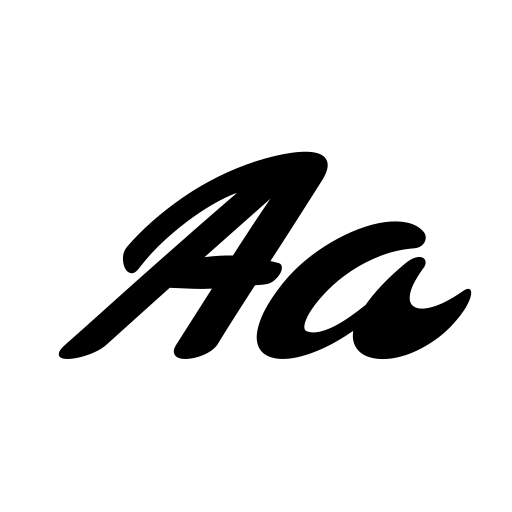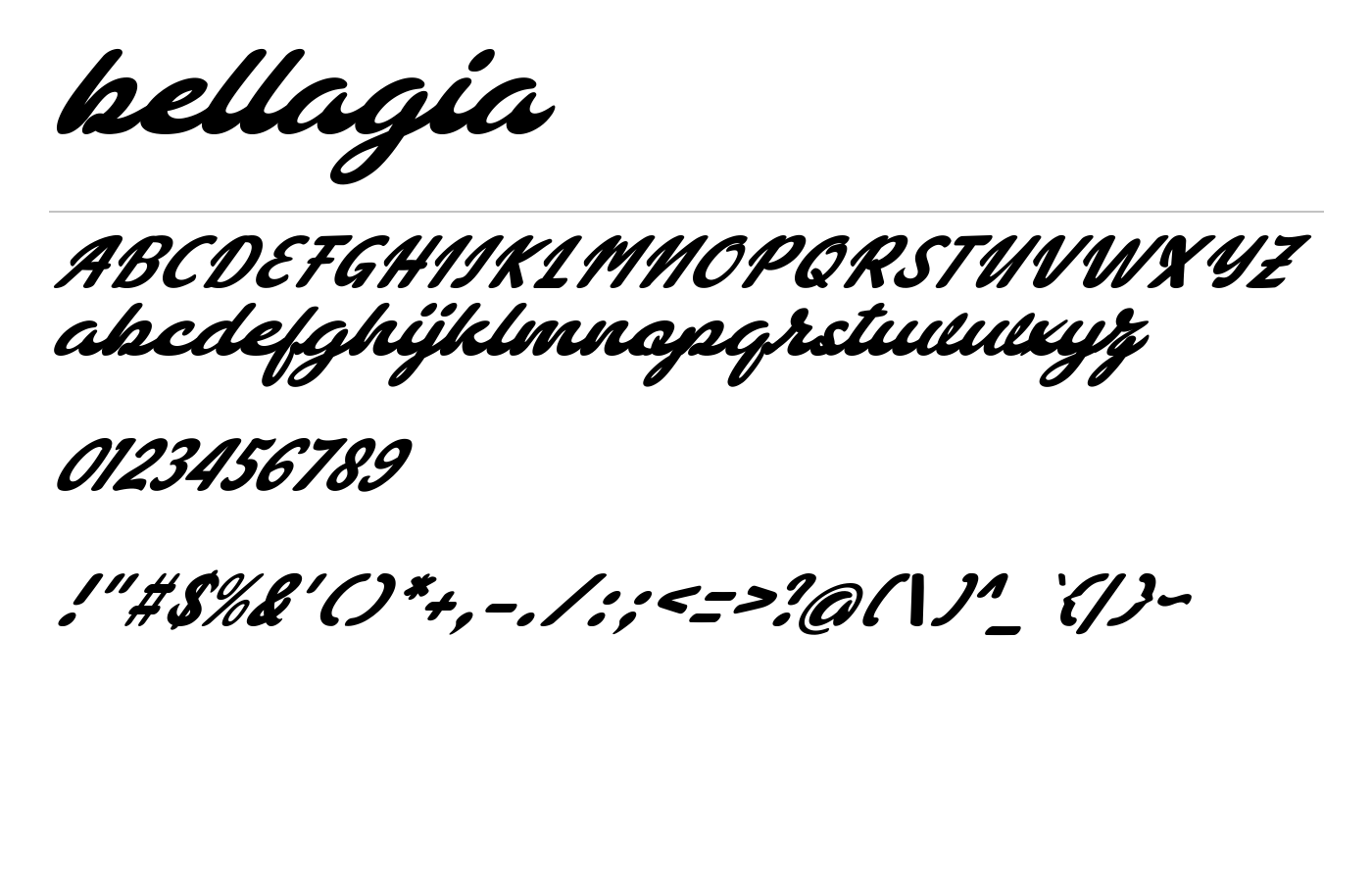
Bellagia is a bold, cursive script font with a smooth and flowing style that feels both dynamic and approachable. Its moderately high x-height and connected letterforms give it an energetic and informal vibe, making it ideal for branding, headlines, and creative projects that want to convey warmth and personality. This font works well in contexts where a stylish yet readable handwritten touch is desired.
bellagia Font
About bellagia Font
| Font family | bellagia Font |
| Designer | marwah |